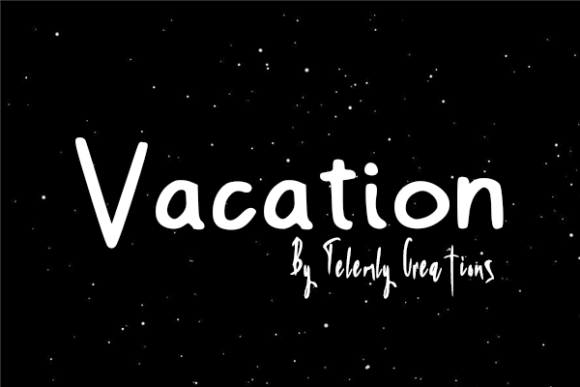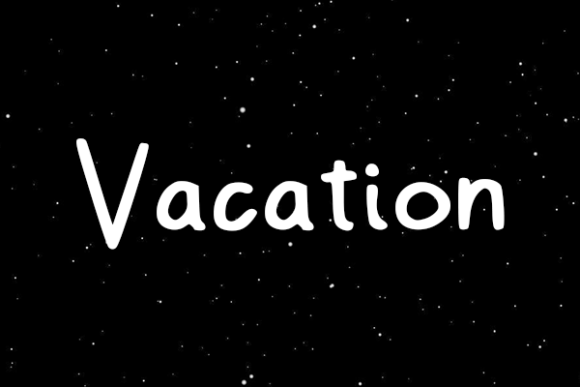
Vacation Font
About Vacation Font
Vacation is an excellent choice for crafting eye-catching logos, branding, and quotes. Each letter in this font is infused with a unique and beautiful touch, adding a distinctive quality that brings your design to life. Whether you’re working on brand identity, logo creation, or creating impactful quotes, Vacation contributes a captivating aesthetic to your creative projects.
The individuality of each letter in Vacation enhances the overall visual appeal, making it a standout option for designs that demand attention. Its versatility allows it to shine in various applications, bringing an elegant and characterful touch to your logos, branding materials, and quotes.
In summary, Vacation is more than just a font; it’s a design element that injects a unique and beautiful quality into your creative work. Whether used in logos, branding, or quotes, this font enhances the visual impact of your designs, making them come alive with sophistication and charm.